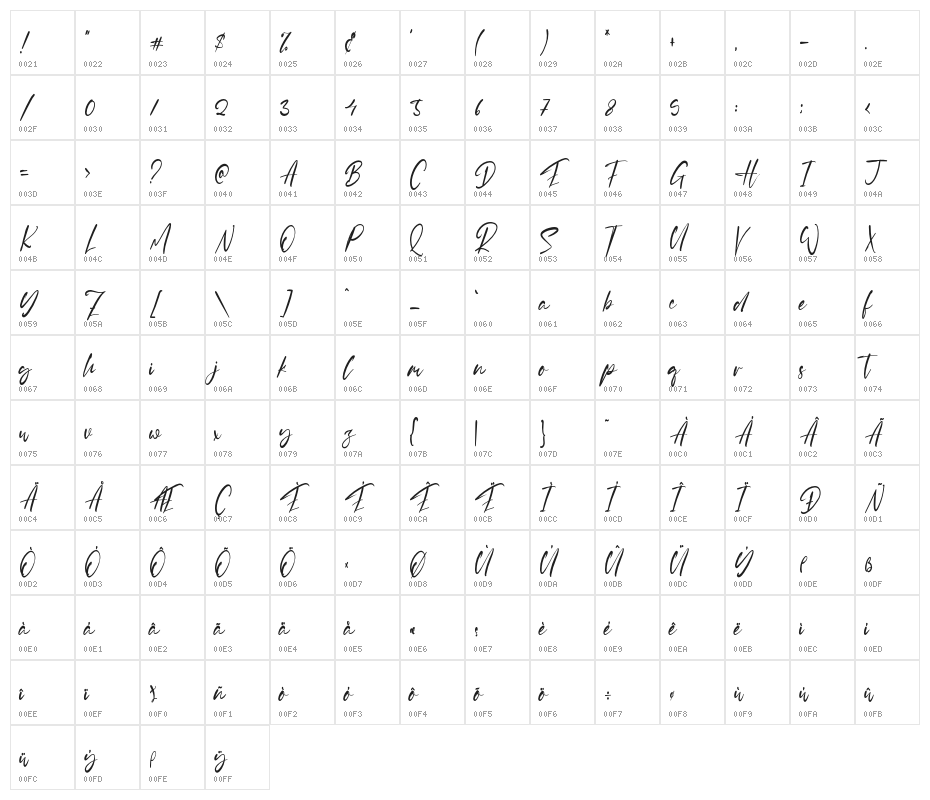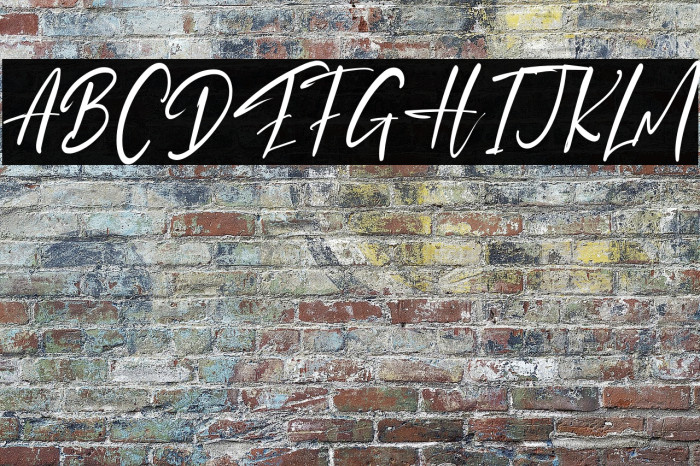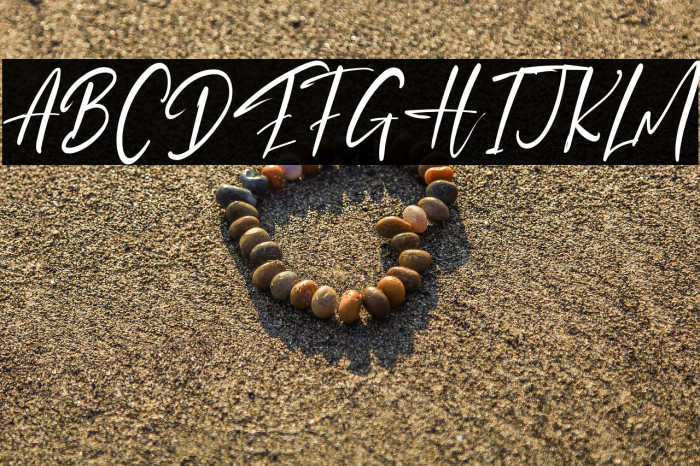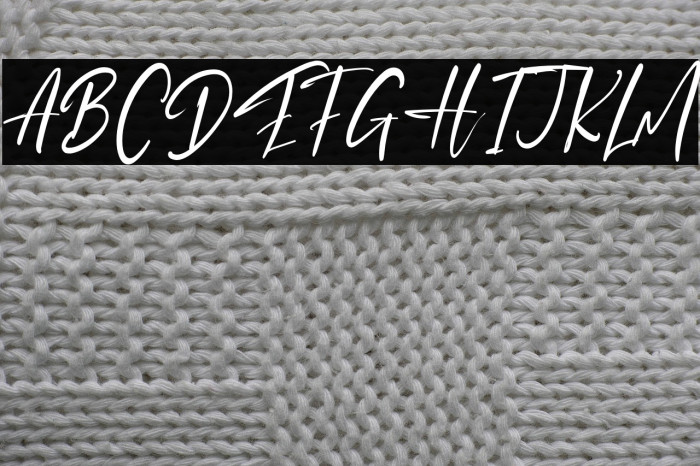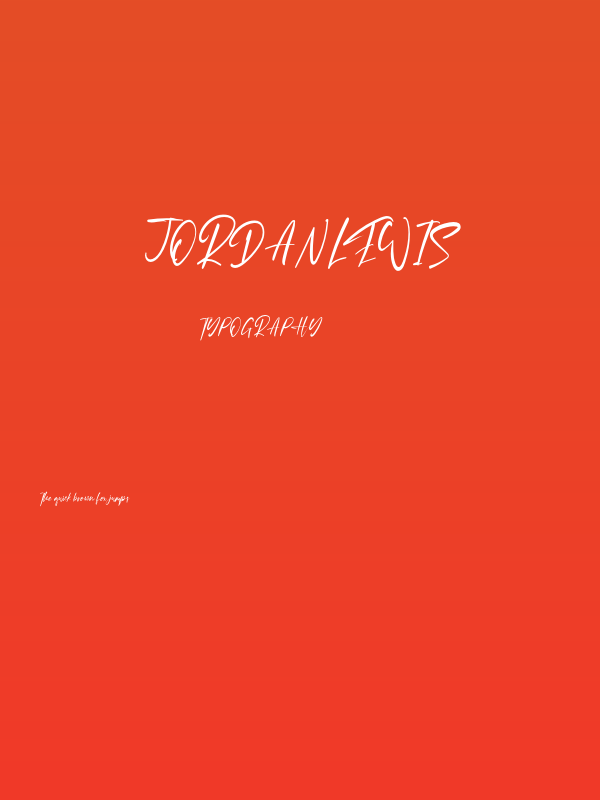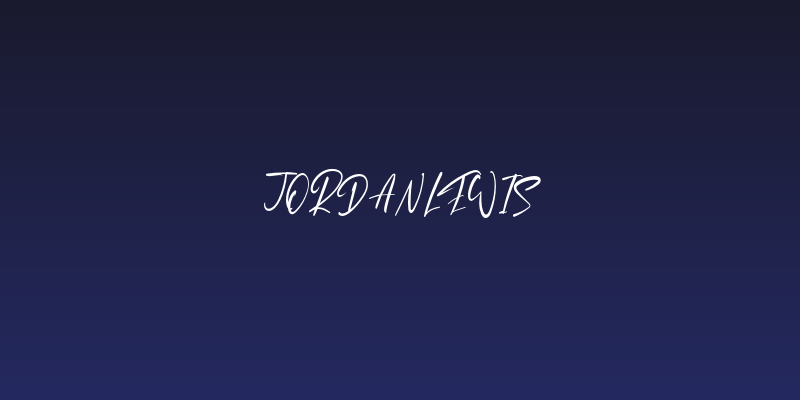
JordanLewis Font
JordanLewis Description
A dynamic and expressive script font with a handwritten style, featuring fluid strokes and varying line thicknesses.
| Use Case | Logos, headlines, artistic text. |
| Proposed Projects | Invitations, greeting cards, branding, and artistic projects. |